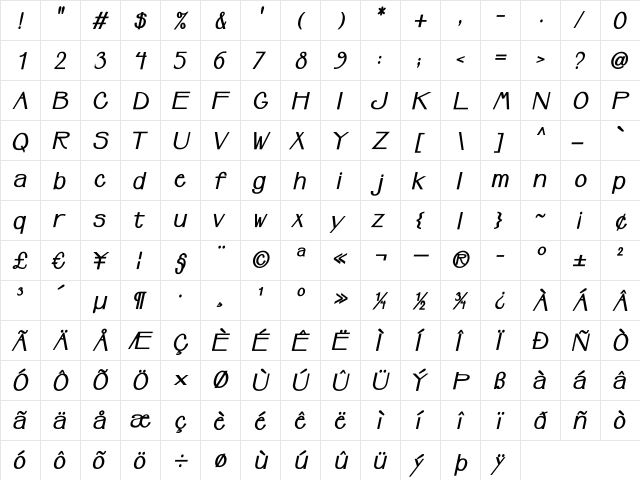
Upperclass Regular Font Preview
Upperclass Regular
Design Context for Upperclass Typeface
Upperclass takes a measured approach to typography — its balanced proportions and neutral character make it a reliable workhorse for both digital and print work.